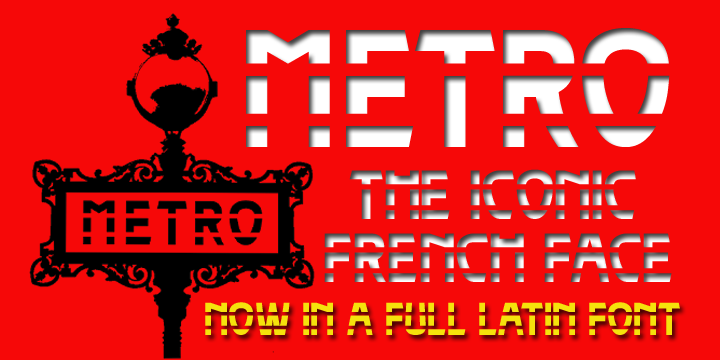
Paris Metro Font is perfect for European-inspired projects including travel agency branding, French restaurant menus, vintage Paris-themed designs, transportation system signage, urban planning materials, European tourism campaigns, boutique hotel branding, art gallery exhibitions, cultural event posters, and sophisticated city-themed publications that celebrate metropolitan elegance and French cultural heritage.
What makes Paris Metro Font so exciting is its authentic capture of iconic Parisian metropolitan style that embodies the timeless elegance and sophisticated urban culture of France's capital city. This font features distinctive letterforms inspired by classic French signage, metro station typography, and Art Nouveau influences that evoke feelings of European sophistication, cultural refinement, and metropolitan charm. The design philosophy celebrates the intersection of functional urban design with artistic beauty, creating typography that feels both historically authentic and contemporarily relevant, perfect for brands that want to communicate European elegance, cultural sophistication, and cosmopolitan appeal.
The Paris Metro Font family typically includes multiple European variations and metropolitan elements, often featuring regular, bold, and condensed versions alongside decorative alternates and French-inspired ornaments. Special ligatures, European symbols, and Art Nouveau flourishes are commonly included to enhance the Parisian aesthetic. Some versions may offer different stylistic expressions reflecting various aspects of French design from classic metro signage to contemporary Parisian boutique styling and modern European urban planning.
Whether you're designing for travel brands, European restaurants, or culturally-focused businesses, Paris Metro Font Free Download provides the perfect foundation for communicating European sophistication, cultural authenticity, and metropolitan elegance. This versatile typeface resonates particularly well with audiences interested in European travel, French culture, urban design, and sophisticated lifestyle experiences.
The font's metropolitan character makes it exceptionally suitable for brands targeting culture enthusiasts, European travelers, design aficionados, and individuals drawn to sophisticated urban lifestyles and French cultural experiences. From travel brochure designs to European restaurant branding, Paris Metro Font helps create elegant connections with audiences who appreciate European sophistication and metropolitan charm.
With its distinctive Parisian character and versatile applications, this font excels in both elegant headlines and sophisticated signage text, making it ideal for comprehensive branding systems that need to maintain European authenticity while ensuring culturally sophisticated visual impact across all metropolitan marketing materials and European-themed communications.